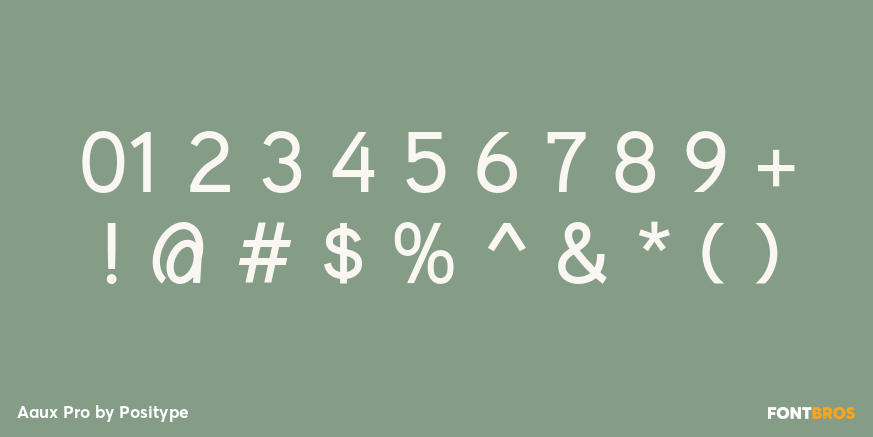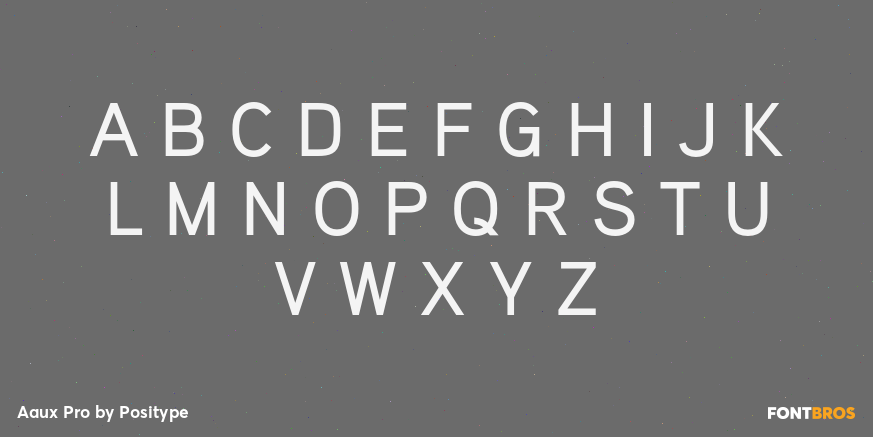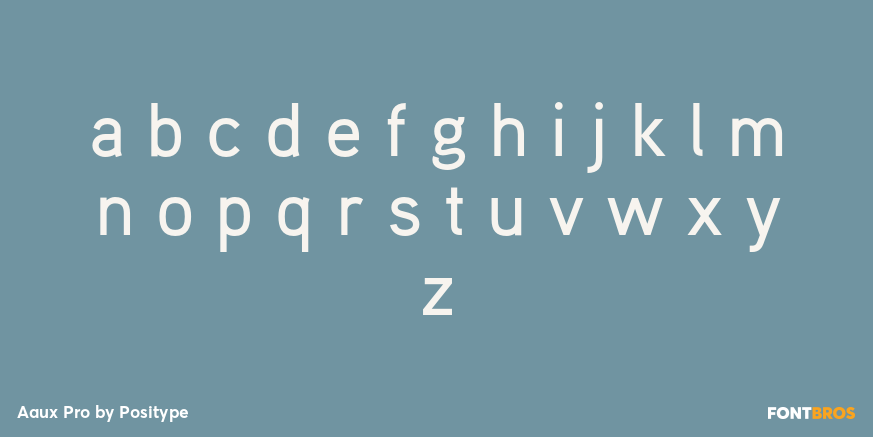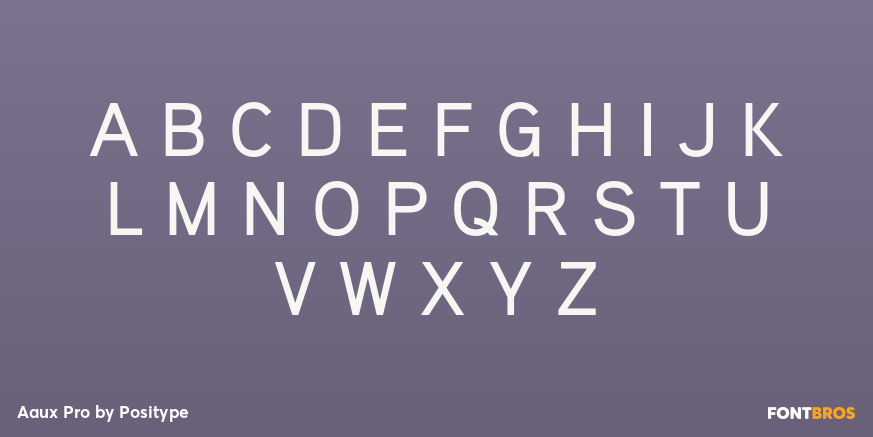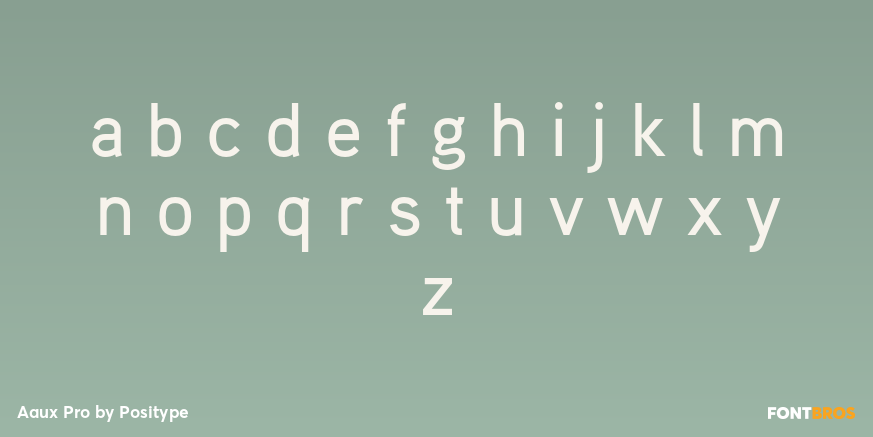
Aaux Pro
Font Family by Positype
Aaux Pro is a modern sans serif with a clean, balanced, slightly condensed feel. Its geometric influence is softened by humanist touches, open forms, and rounded counters, giving it a neutral yet refined voice that reads as both professional and contemporary.
With 38 styles included, the family offers a broad range for everything from polished branding and corporate identity to editorial design, headlines, posters, and display-text settings. The high x-height and legible construction help it stay clear in use, while italics, small caps, oldstyle figure styles, and the dedicated Poster cut add useful flexibility across design systems.
Published by Positype, this is a versatile choice for designers who want a sleek sans that can move easily between utilitarian text work and more expressive, presentation-ready layouts.